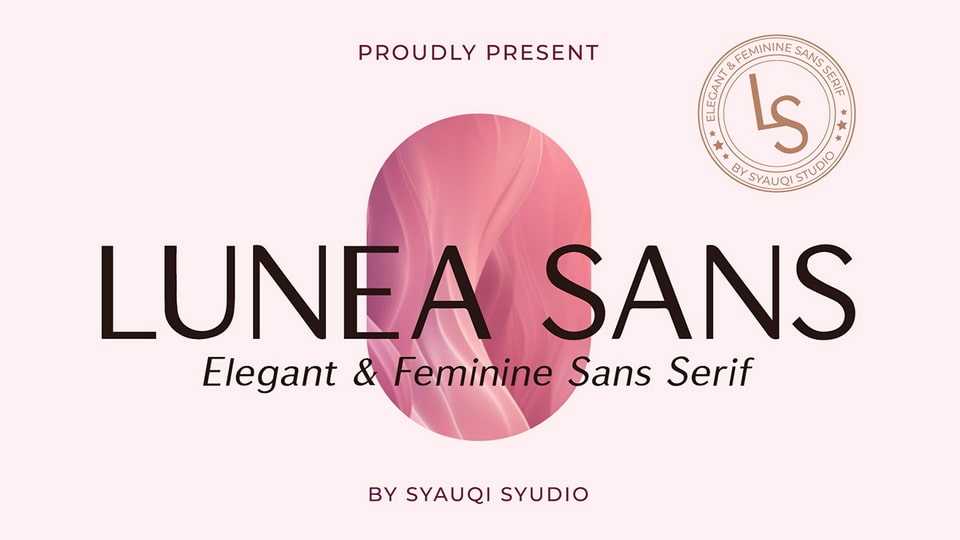
Download Lunea Sans font, a modern sans serif typeface that seamlessly blends elegance, femininity, and timeless minimalism. Designed with graceful curves and refined proportions, Lunea Sans brings a sense of sophistication
Designer: Syauqi Studio